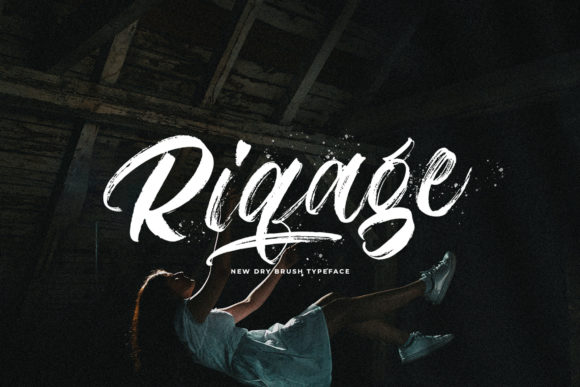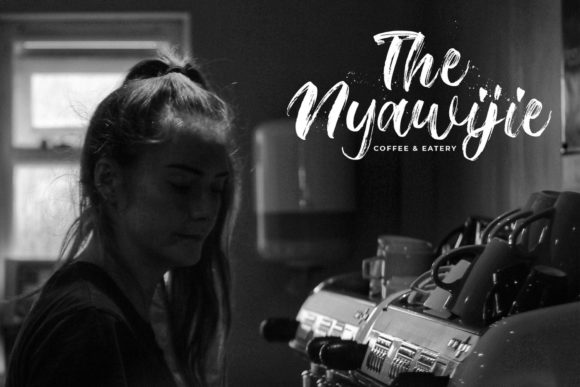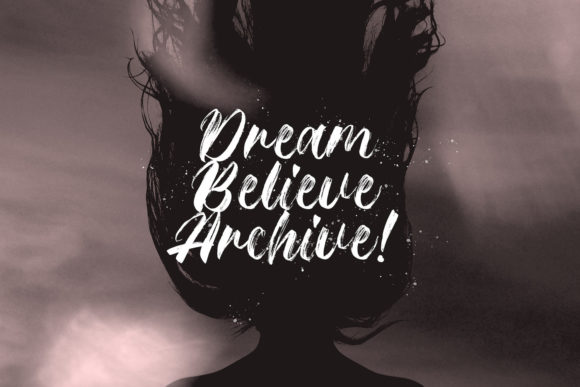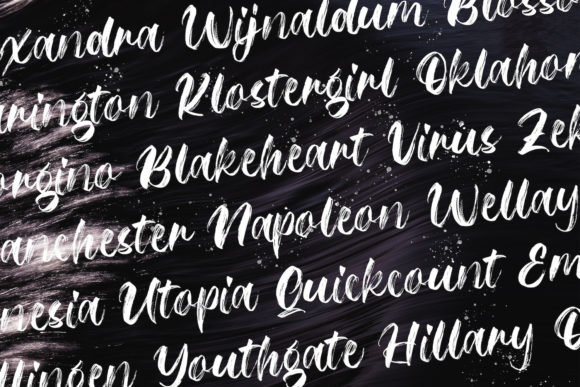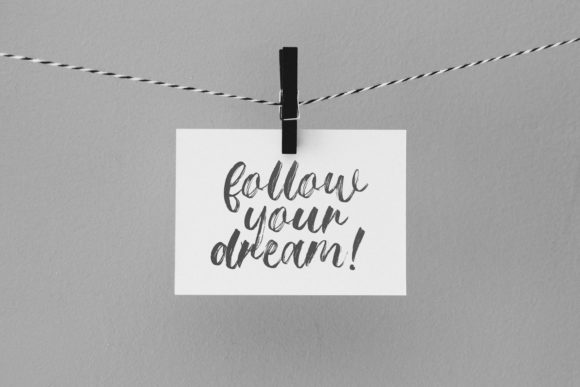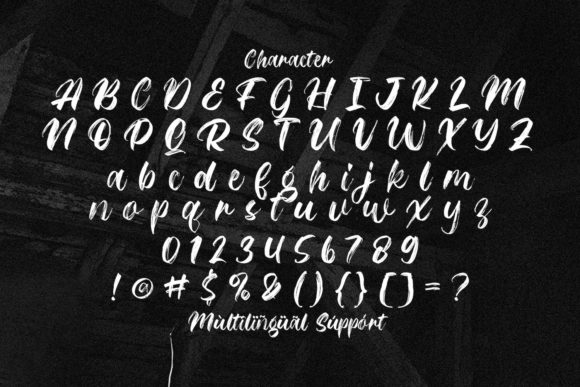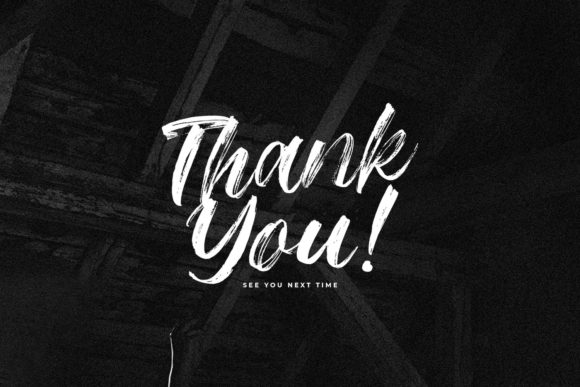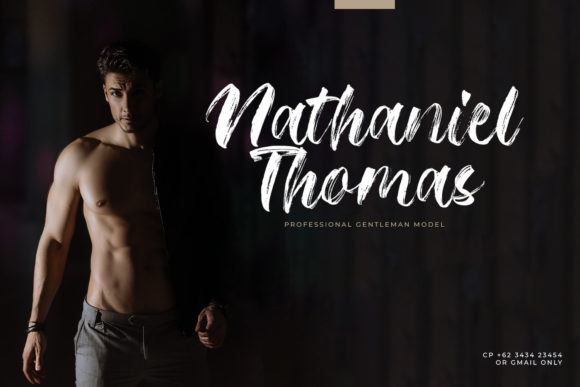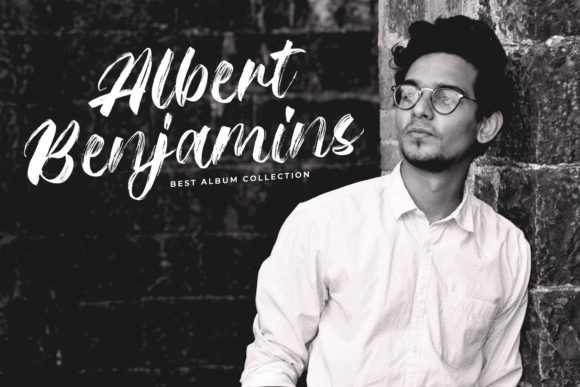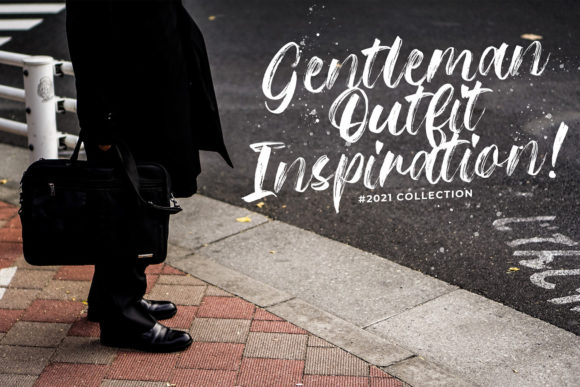
Riqage Font
About Riqage Font
Riqage is a modern and fun handwritten font that looks natural and authentic. It would be a perfect choice for bold projects that need solemn and cool typography!